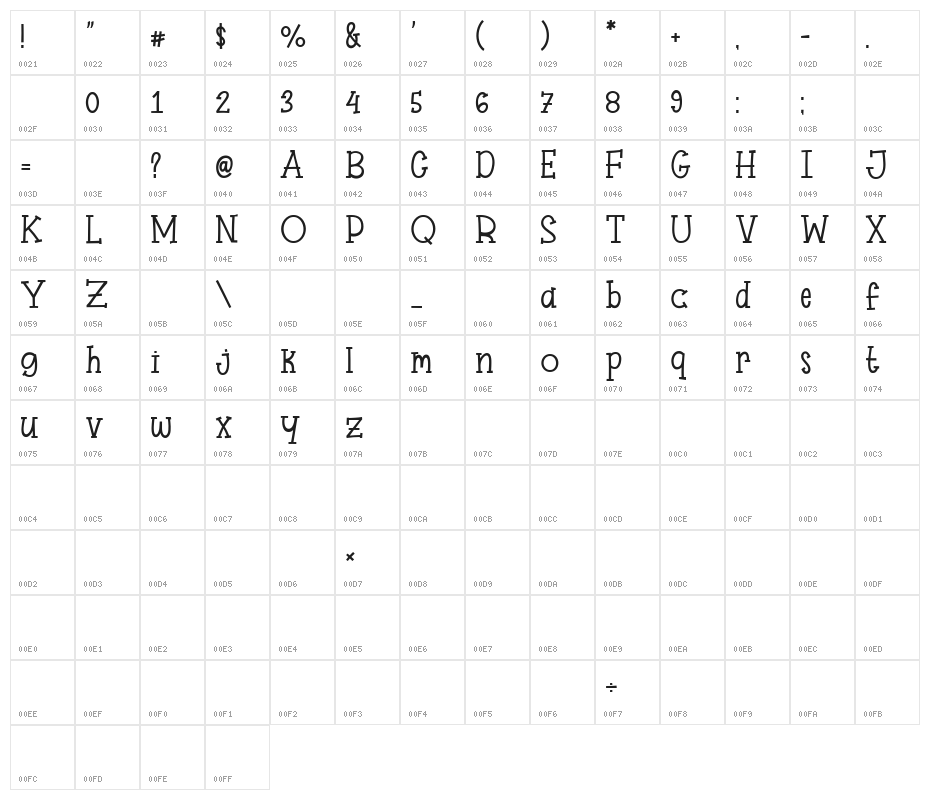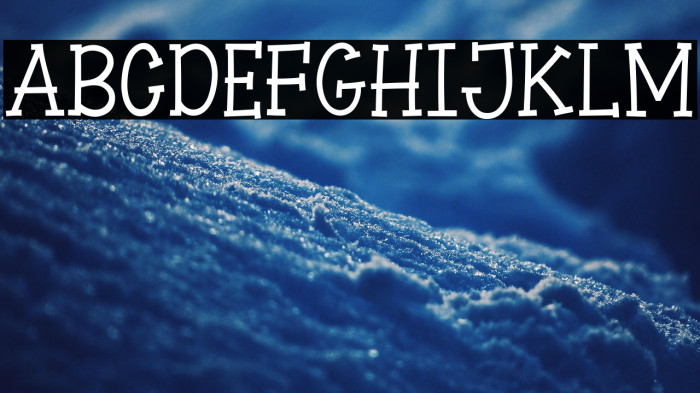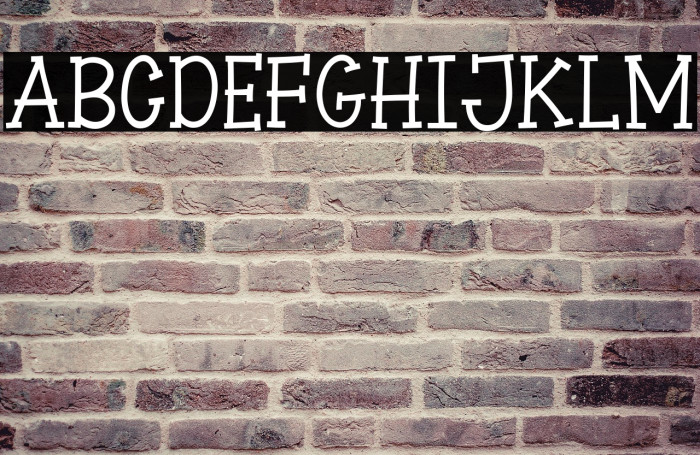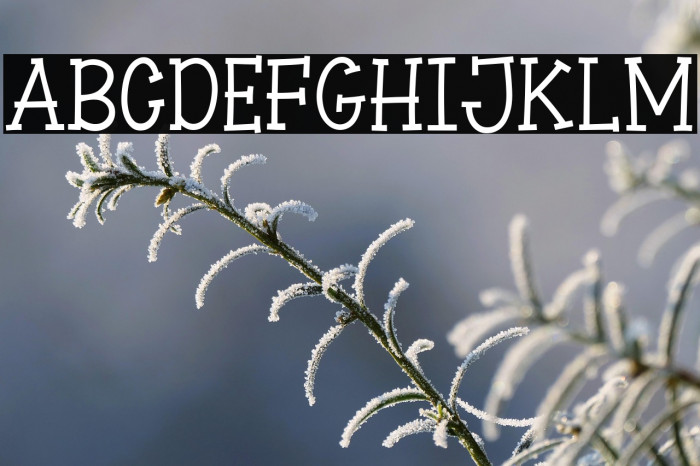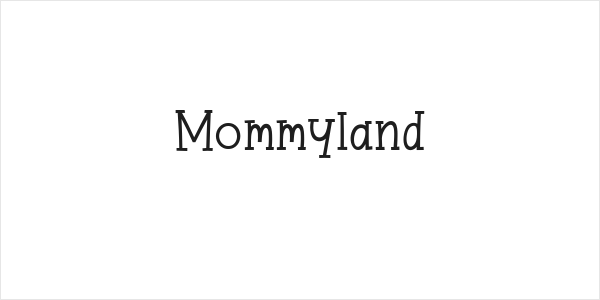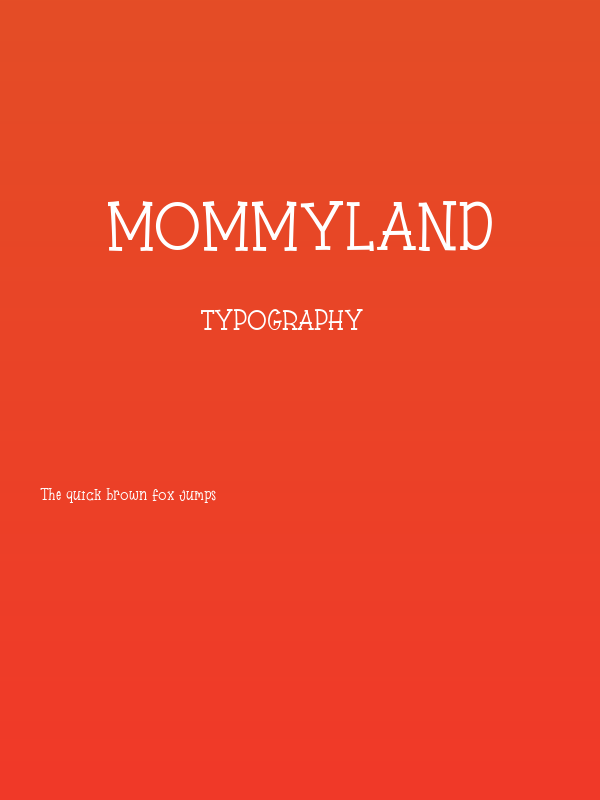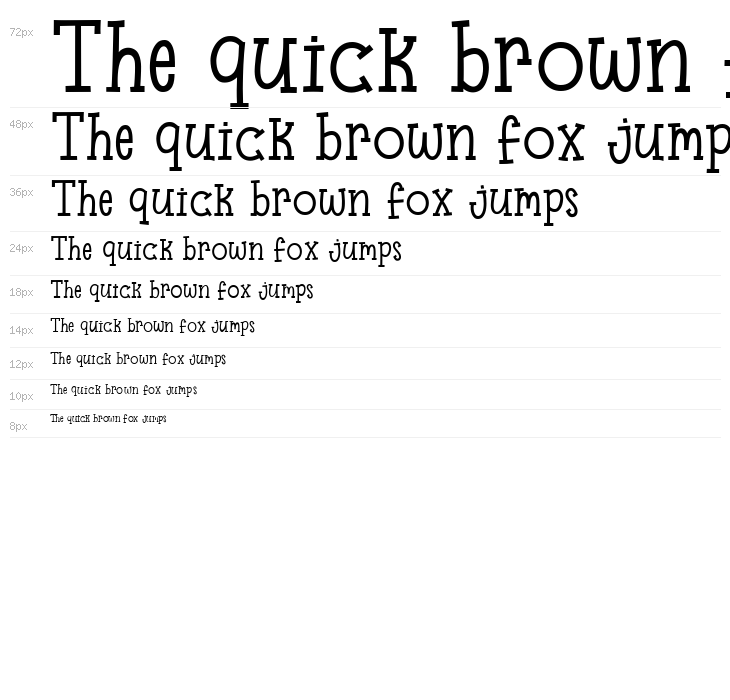
Mommyland Font
Mommyland Description
This font features a playful and whimsical style, characterized by its hand-drawn appearance. The letters exhibit a slight irregularity, giving them a charming and informal feel. The uppercase letters are bold and slightly condensed, while the lowercase letters maintain a consistent height with rounded edges. The numerals are clear and legible, matching the playful aesthetic of the alphabet. Special characters are creatively designed, adding to the overall quirky and fun nature of the font. This style is reminiscent of casual handwriting, making it suitable for projects that require a personal touch.
| Proposed Projects | Ideal for children's books, greeting cards, playful branding, and casual invitations. |